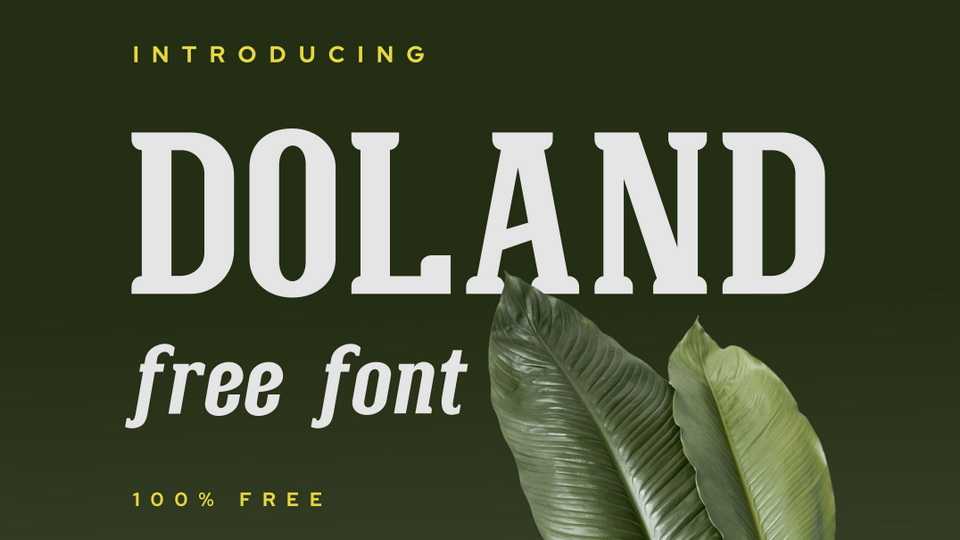
Download Doland font. a vintage serif font family in two styles. Bold and thick serifs make for strong impact in display uses while its delicate rounded rectangular structure is naturally adapted to text blocks.
Designer: Typra Studio